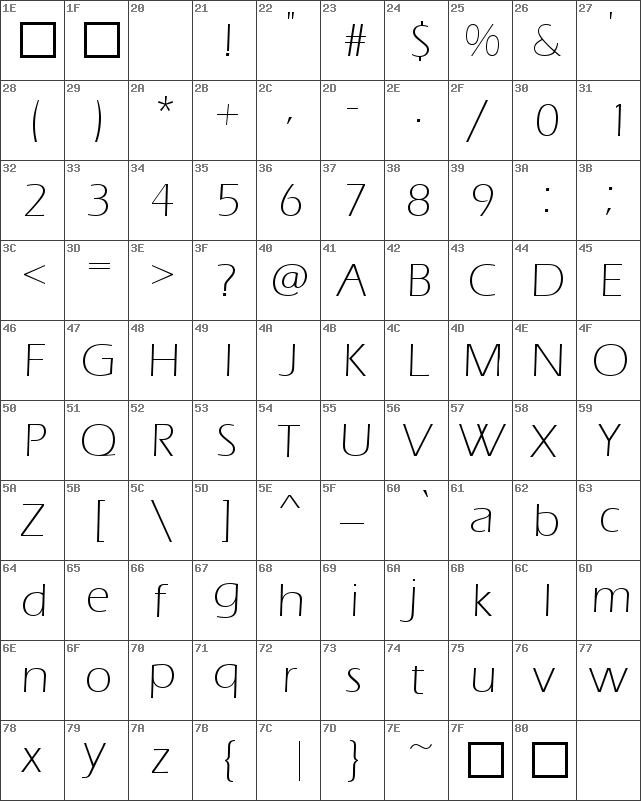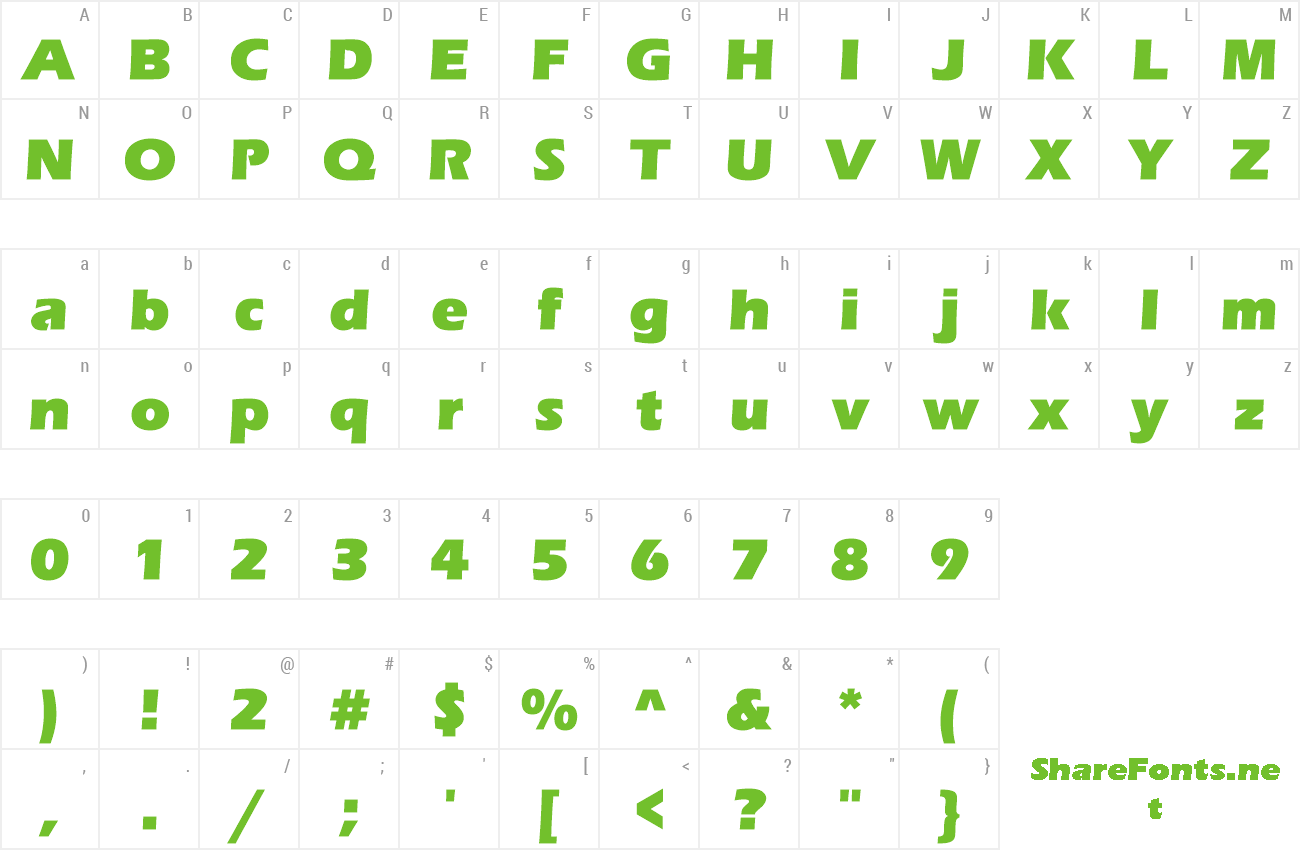
Erasitc Font Download - 3 users have given the font a rating of 5.0 out of 5. You can find more information about itc eras std bold and it's character map in the. Web itc eras std bold is a bold opentype font. Download itc eras std for free, view. Web itc eras is a sans serif with unusual style, thanks to its slight forward slant and subtle variations in stroke weights. Web download the eras bold itc free font. The font is available in all formats (itc eras woff2, itc eras woff, itc eras ttf, itc eras. 1 style uncategorized 474 downloads. Windows , macos , linux , photoshop , web site. Detailed information on the eras bold itc font:
Web itc eras std bold is a bold opentype font. Download itc eras std for free, view. Detailed information on the eras bold itc font: You can find more information about itc eras std bold and it's character map in the. Windows , macos , linux , photoshop , web site. Web download the eras bold itc free font. Web download itc eras. It has been downloaded 2424 times. 3 users have given the font a rating of 5.0 out of 5. Web itc eras is a sans serif with unusual style, thanks to its slight forward slant and subtle variations in stroke weights.
Web itc eras is a sans serif with unusual style, thanks to its slight forward slant and subtle variations in stroke weights. 1 style uncategorized 474 downloads. Web download itc eras. Download itc eras std for free, view. As with most contemporary typefaces designed for film typography, itc eras has a comparatively.
1 style uncategorized 474 downloads. Windows , macos , linux , photoshop , web site. Web itc eras std bold is a bold opentype font. You can find more information about itc eras std bold and it's character map in the. Web itc eras is a sans serif with unusual style, thanks to its slight forward slant and subtle variations.
Web itc eras is a sans serif with unusual style, thanks to its slight forward slant and subtle variations in stroke weights. Web download the eras bold itc free font. 3 users have given the font a rating of 5.0 out of 5. Windows , macos , linux , photoshop , web site. Web itc eras std bold is a.
Windows , macos , linux , photoshop , web site. Web itc eras is a sans serif with unusual style, thanks to its slight forward slant and subtle variations in stroke weights. You can find more information about itc eras std bold and it's character map in the. The font is available in all formats (itc eras woff2, itc eras.
Web itc eras std bold is a bold opentype font. 1 style uncategorized 474 downloads. You can find more information about itc eras std bold and it's character map in the. Detailed information on the eras bold itc font: As with most contemporary typefaces designed for film typography, itc eras has a comparatively.
As With Most Contemporary Typefaces Designed For Film Typography, Itc Eras Has A Comparatively.